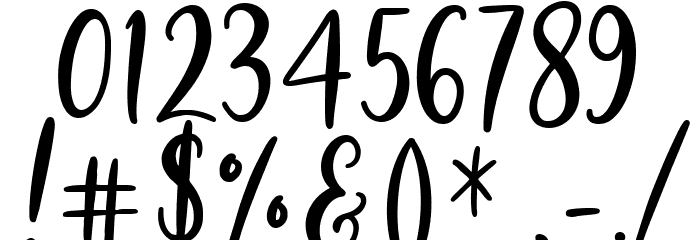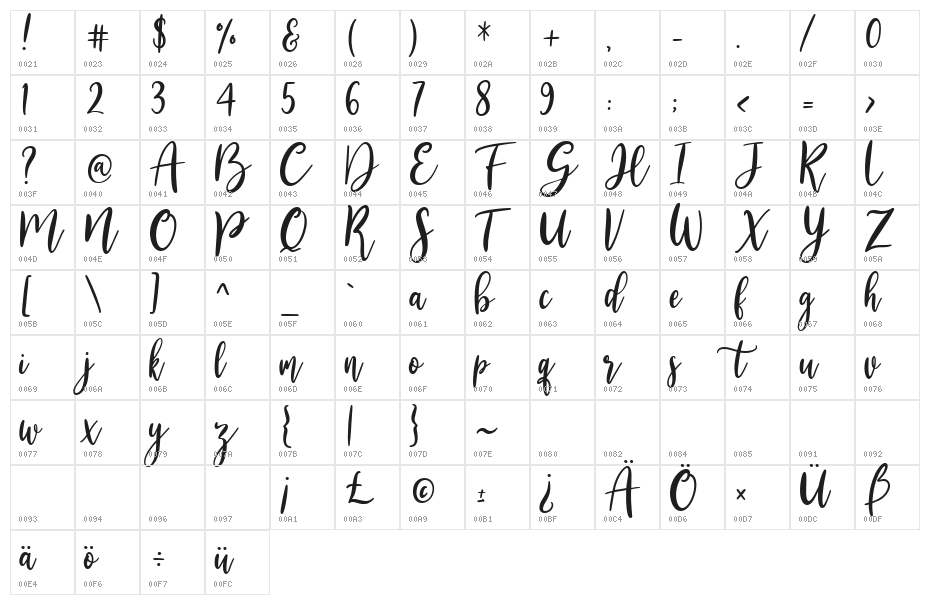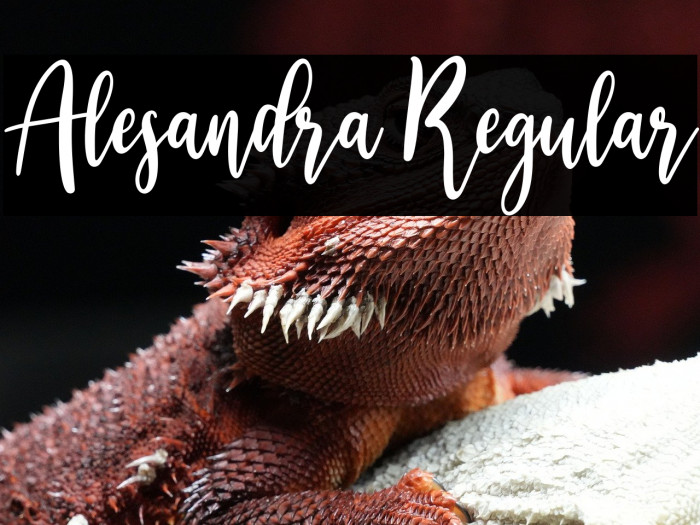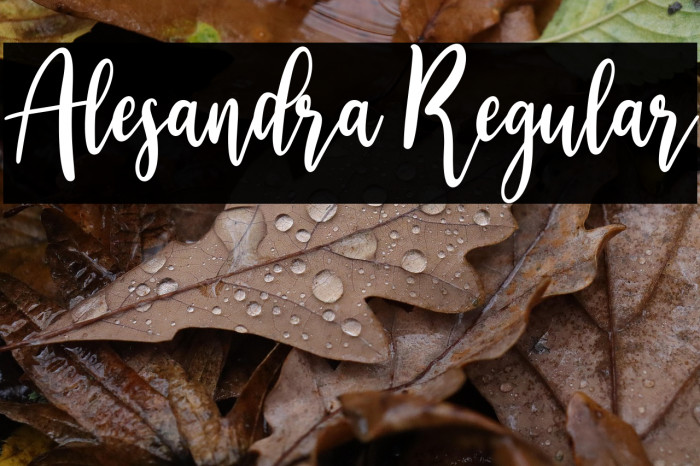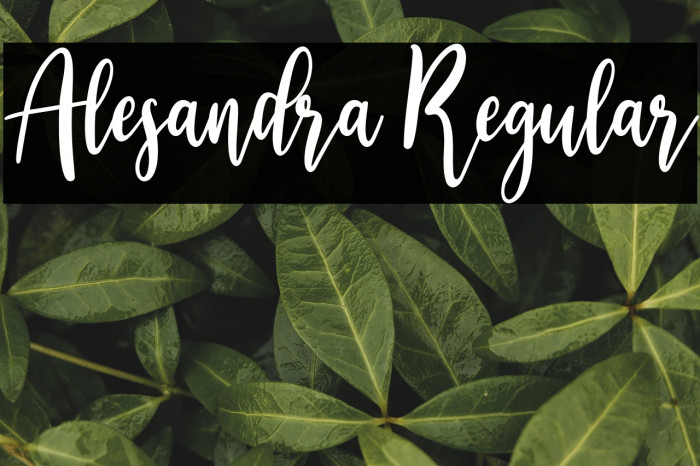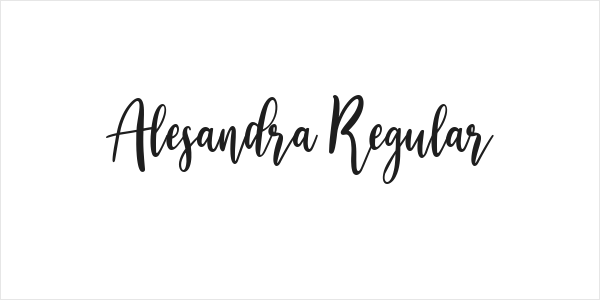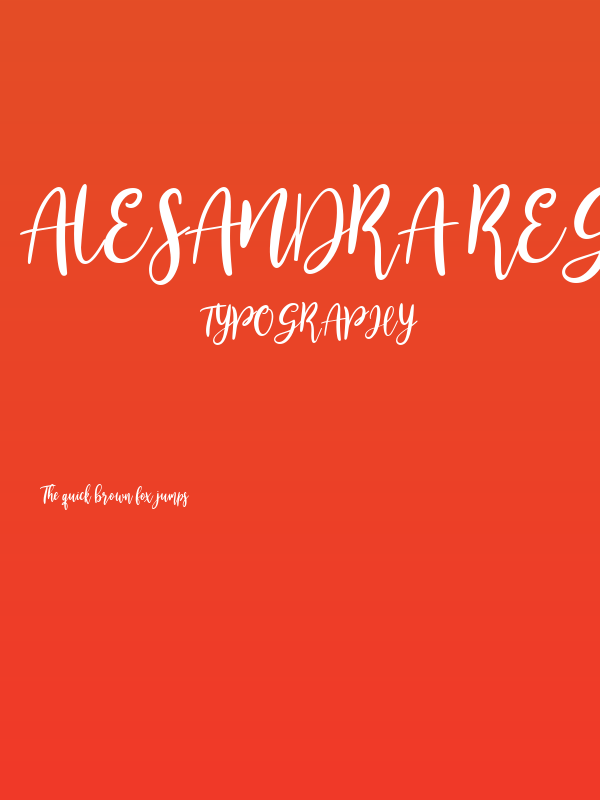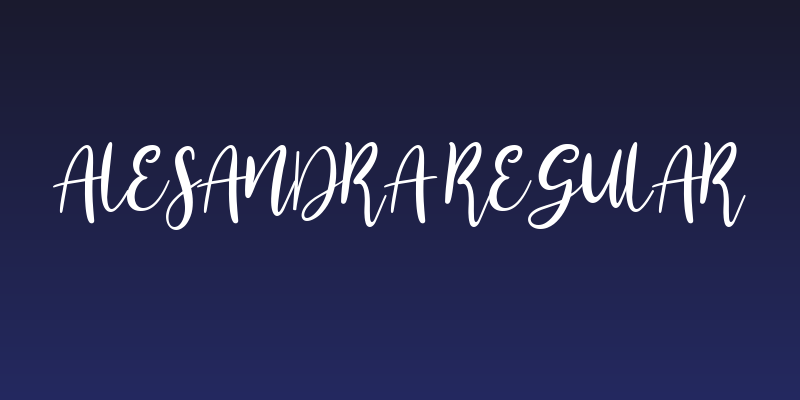
Alesandra Regular Font
Alesandra Regular Description
This font features a lively and flowing script style, characterized by its elegant and dynamic strokes. The uppercase letters exhibit a graceful, cursive form with smooth transitions and a slight slant, giving them a sophisticated appearance. The lowercase letters continue this fluidity, with some letters connecting seamlessly, enhancing the handwritten feel. The numerals are bold and consistent with the overall style, maintaining the same flowing characteristics. Special characters are creatively integrated, adding to the font's versatility. This font's design is both expressive and legible, making it suitable for a variety of creative applications.
| Proposed Projects | Ideal for wedding invitations, branding, greeting cards, and social media graphics. |